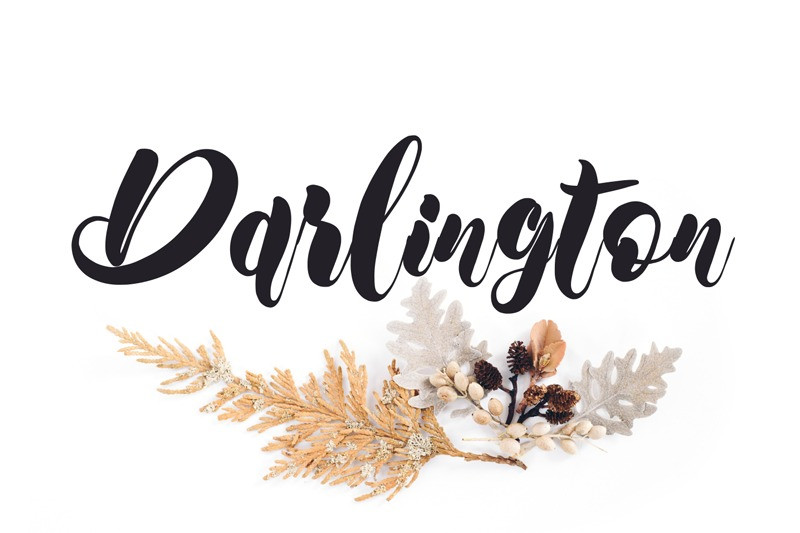
Bromarkers Brush Font
Bromarkers Font is a unique handmade brush font by CalligraphyFonts.net, Buy License to use it for Commercial purposes. Awesome for branding projects, homeware designs, product packaging – or simply as a stylish text overlay to any background image.